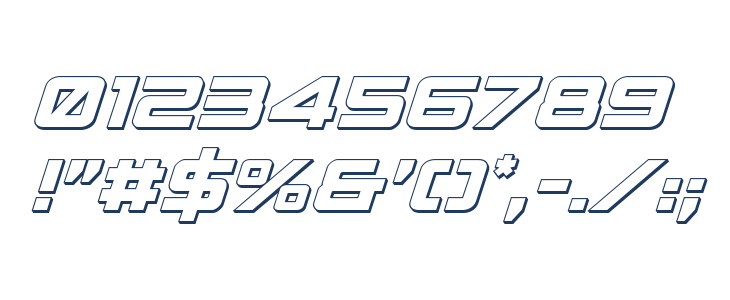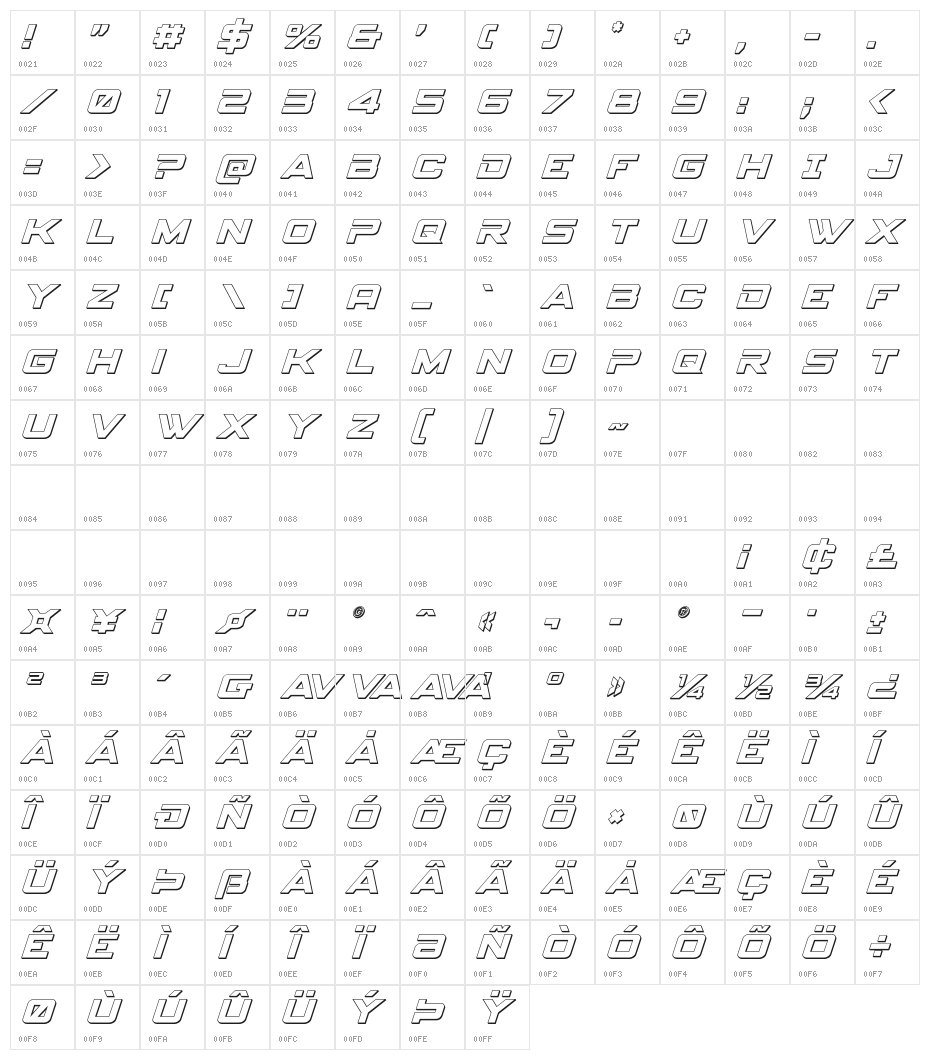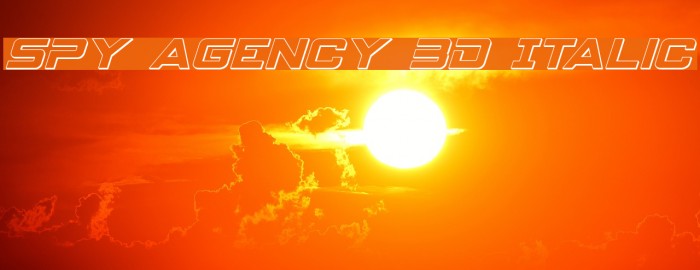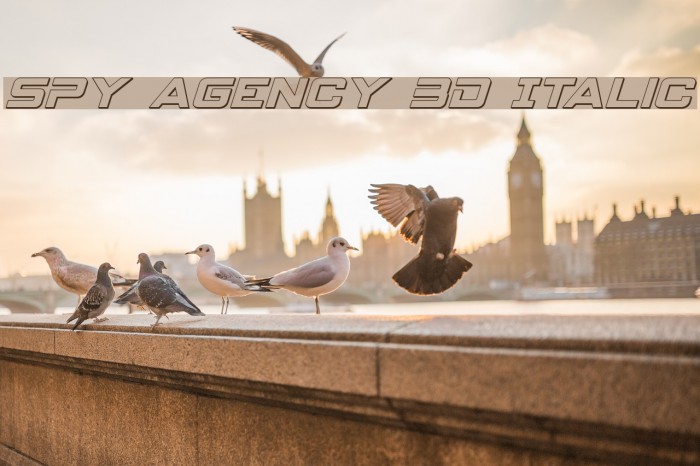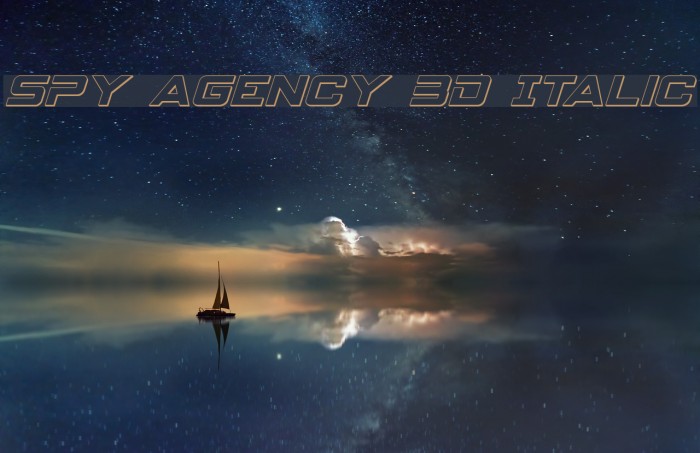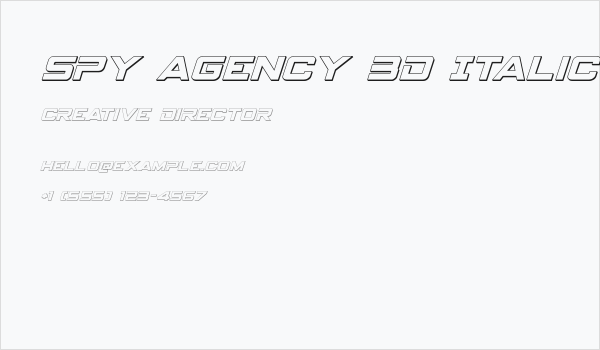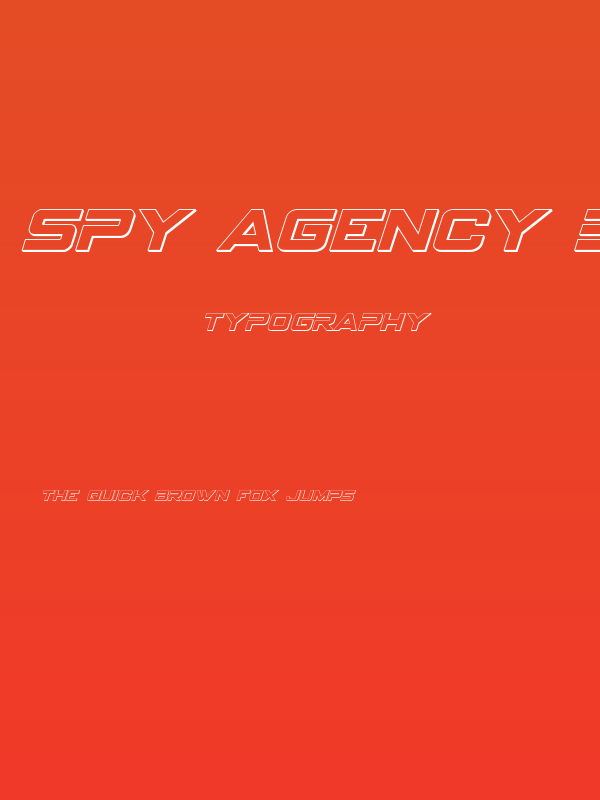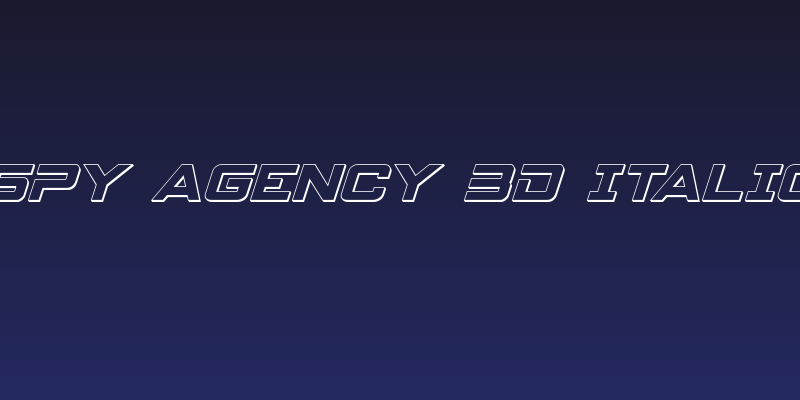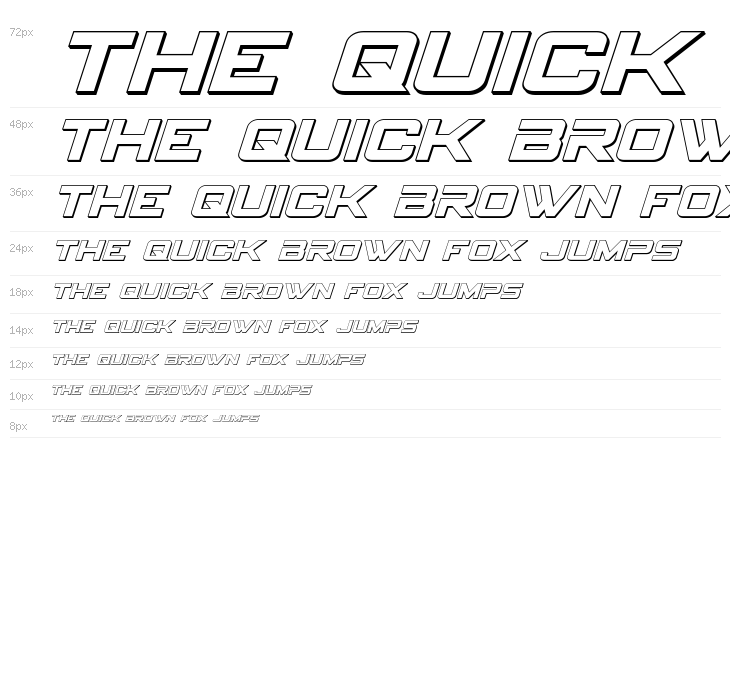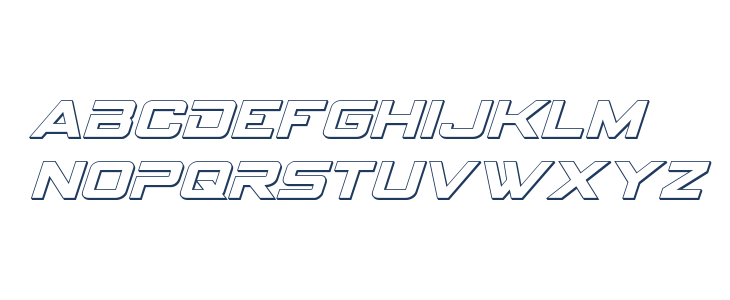
Spy Agency 3D Italic Font
Spy Agency 3D Italic Description
This font features a bold, futuristic design with a 3D effect that gives each character a sense of depth and dynamism. The italicized style adds a forward-leaning motion, enhancing its modern and sleek appearance. Each letter is outlined, creating a hollow effect that emphasizes the geometric structure of the characters. The font is highly legible, with consistent stroke widths and clean lines, making it suitable for a variety of digital and print applications. The inclusion of numbers and special characters ensures versatility for different design needs.
| Proposed Projects | Ideal for sci-fi themed projects, video game titles, tech branding, and modern posters. |